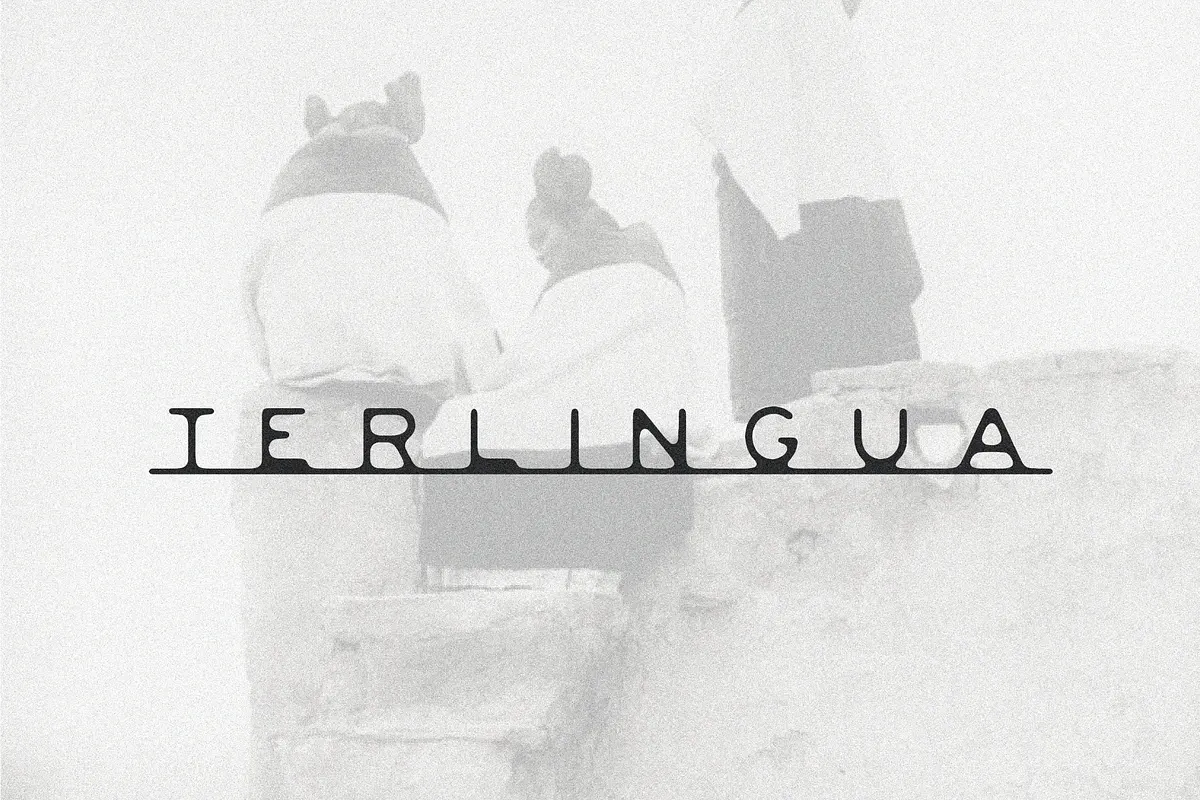
Terlingua Font Free Download is a handcrafted typeface inspired by the old iron welded signs commonly found in the American Southwest. Designed by James Coffman, this font captures a rustic and vintage aesthetic, making it ideal for projects that aim to evoke a sense of nostalgia and authenticity. Whether you're working on branding, signage, posters, or any design that requires a touch of the Old West, Terlingua provides a distinctive and rugged charm.
The font features bold, decorative characters with unique serifs and thick strokes, reflecting the craftsmanship of traditional welded signs. Its design ensures high visibility and impact, making it suitable for headlines and logos that need to stand out.